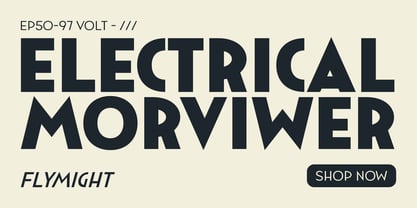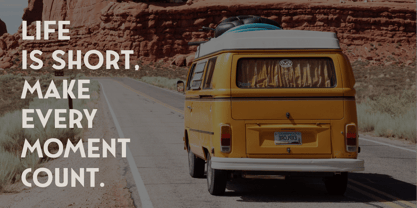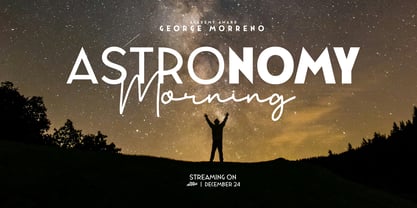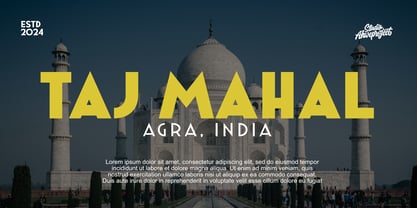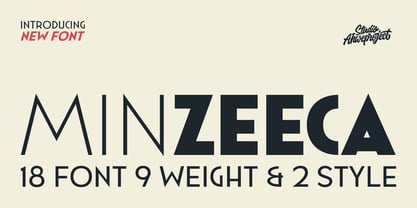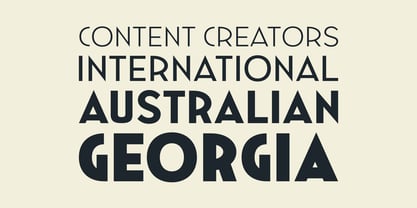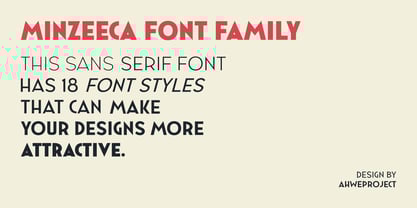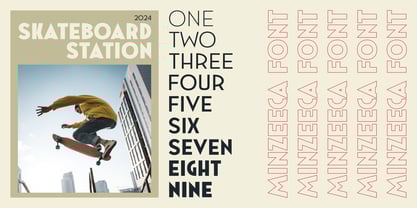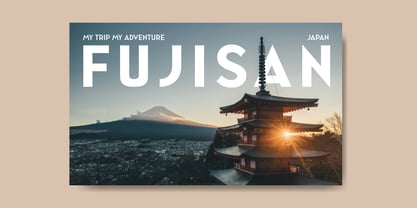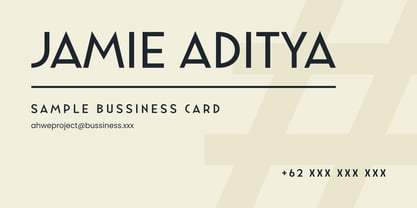
Minzeeca
by ahweproject
The Minzeeca Font Family was designed by Dida Ahluddin and published by ahweproject. Minzeeca contains 18 styles and family package options.
Immerse yourself in the nostalgic charm of the Minzeeca Family, a contemporary sans serif font echoing the art deco nuances and typography posters from the dawn of the 20th century. Boasting an all caps format, Minzeeca weaves simple, straight geometric lines with modernized letter forms, presenting a clean yet compelling display font, ideal for captivating headlines, striking posters, distinctive logos, innovative branding projects, content-rich magazines, and visually appealing packaging. The chic, retro-modern aesthetic of the Minzeeca Family allows it to be effortlessly interwoven in creations relating to travel, history, and culture, all while maintaining a thoroughly modern vibe. Experience the evocative allure of the Minzeeca Family; a subtle rendezvous of past elegance and present simplicity.